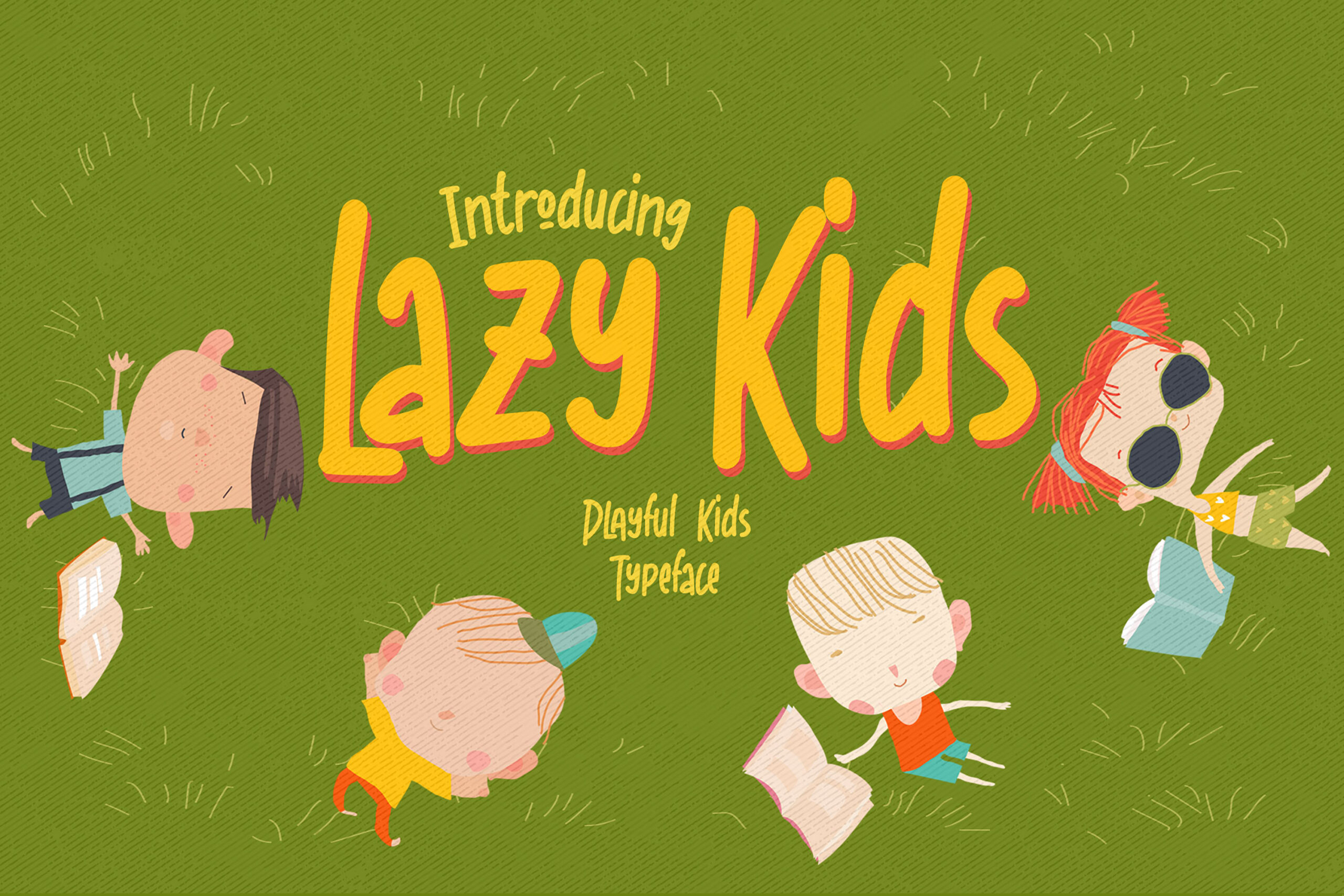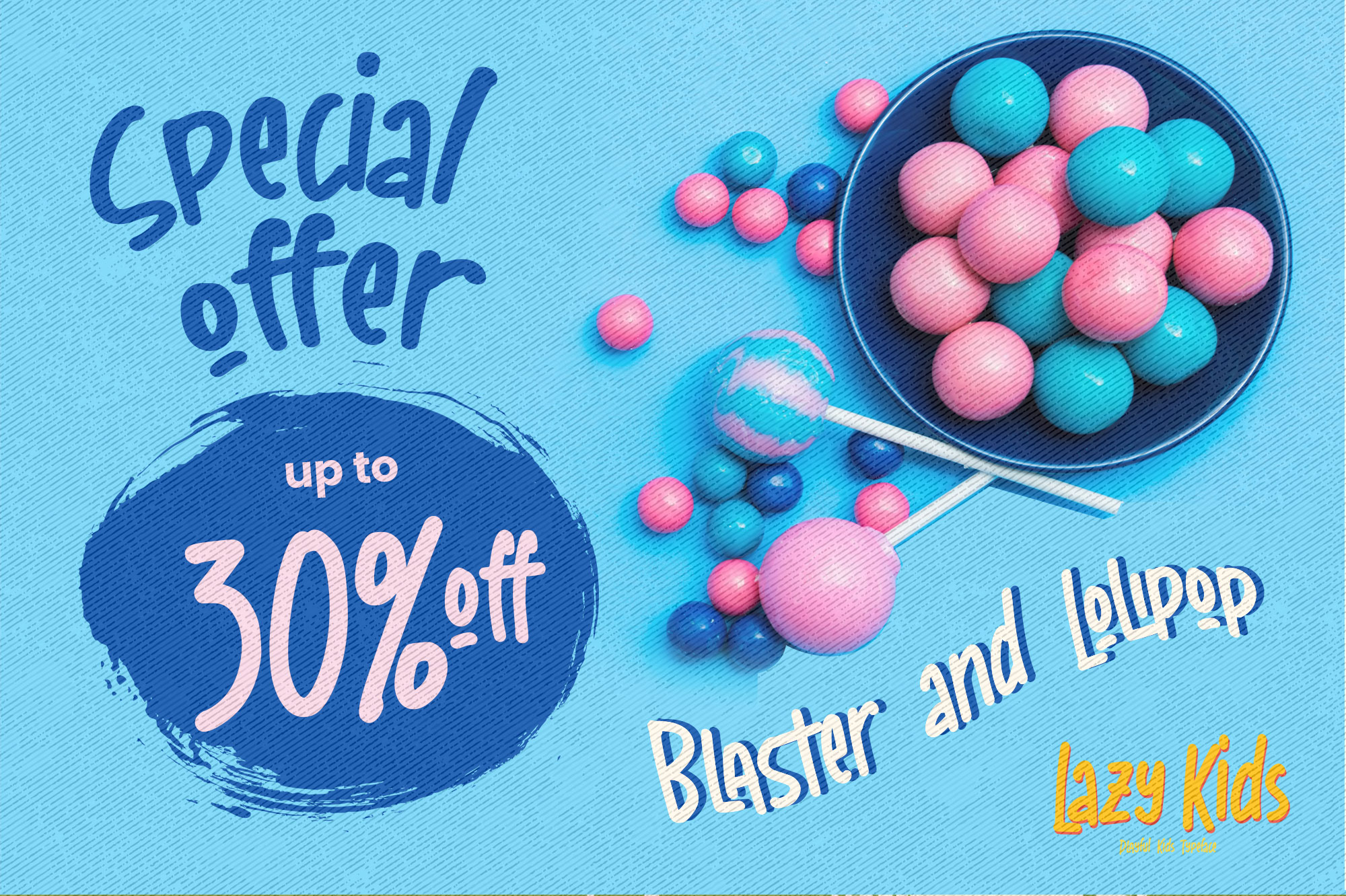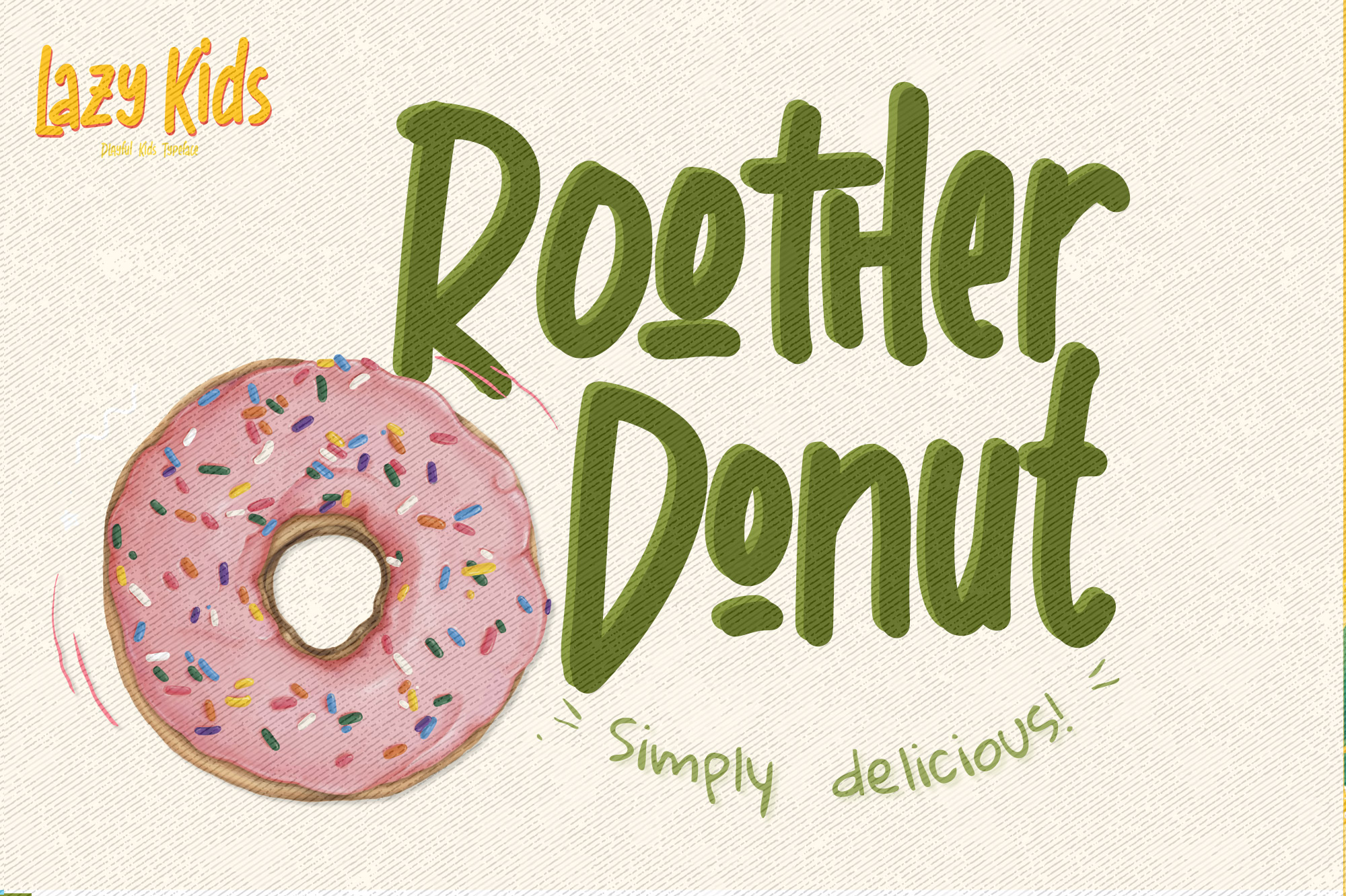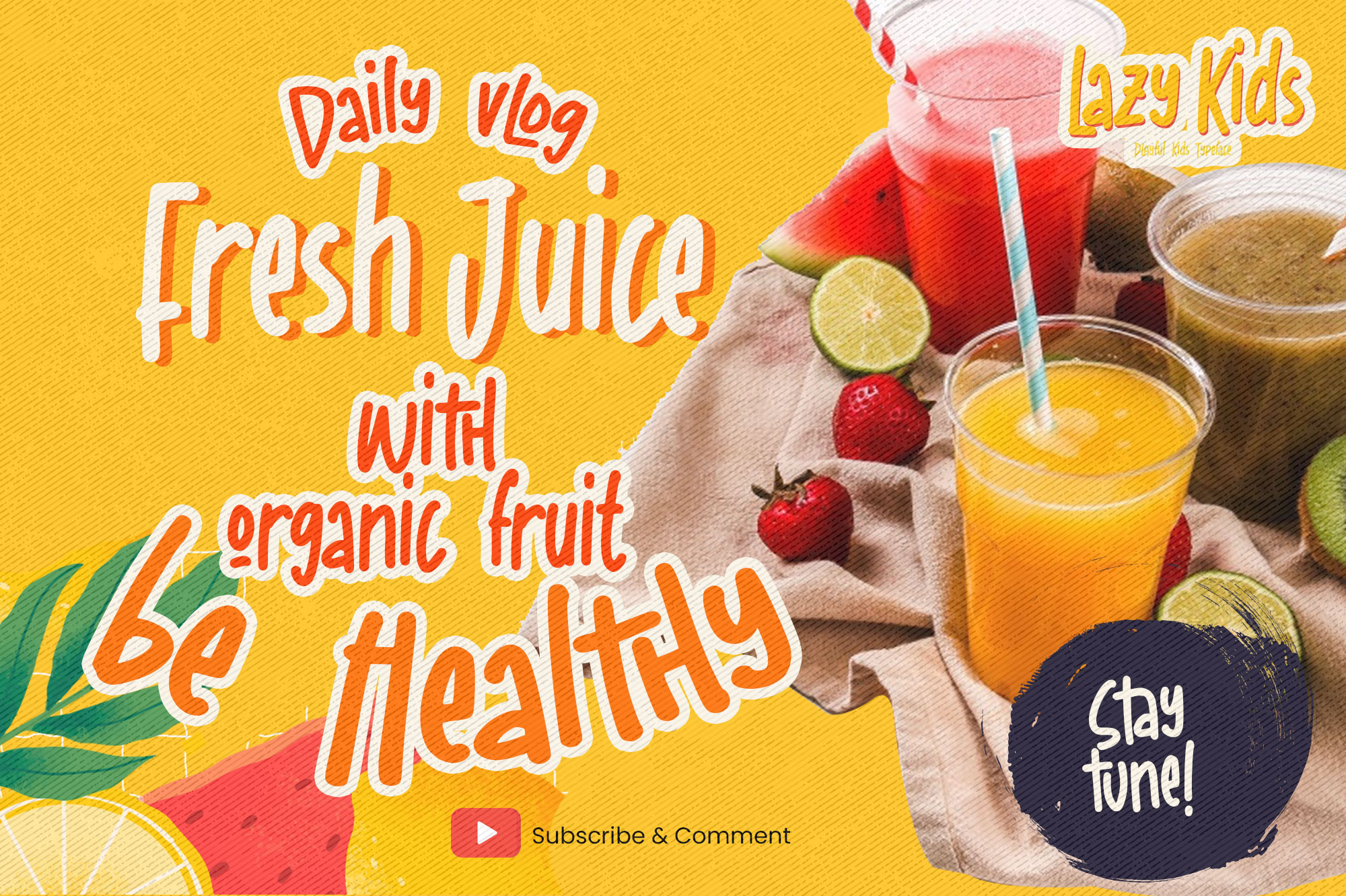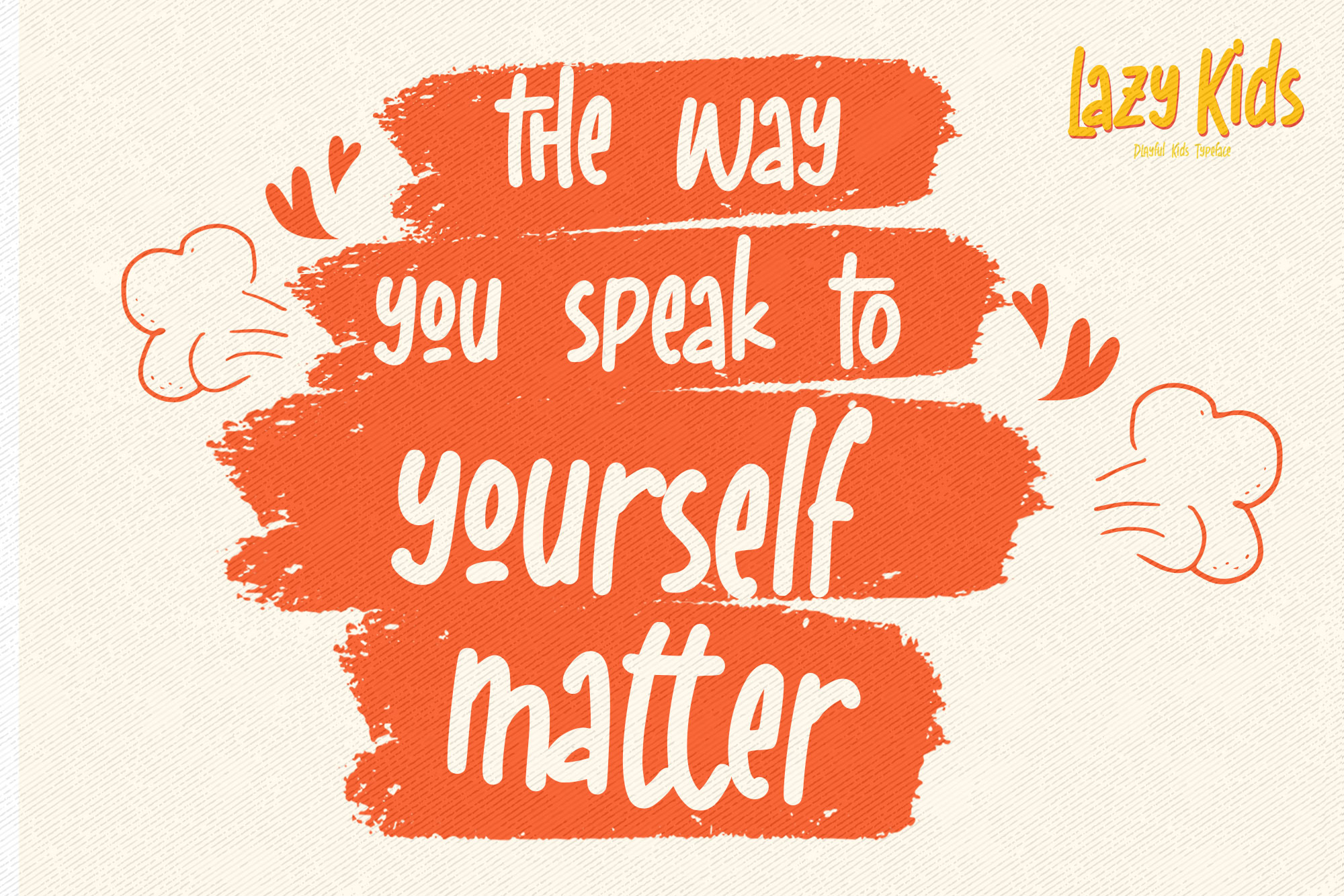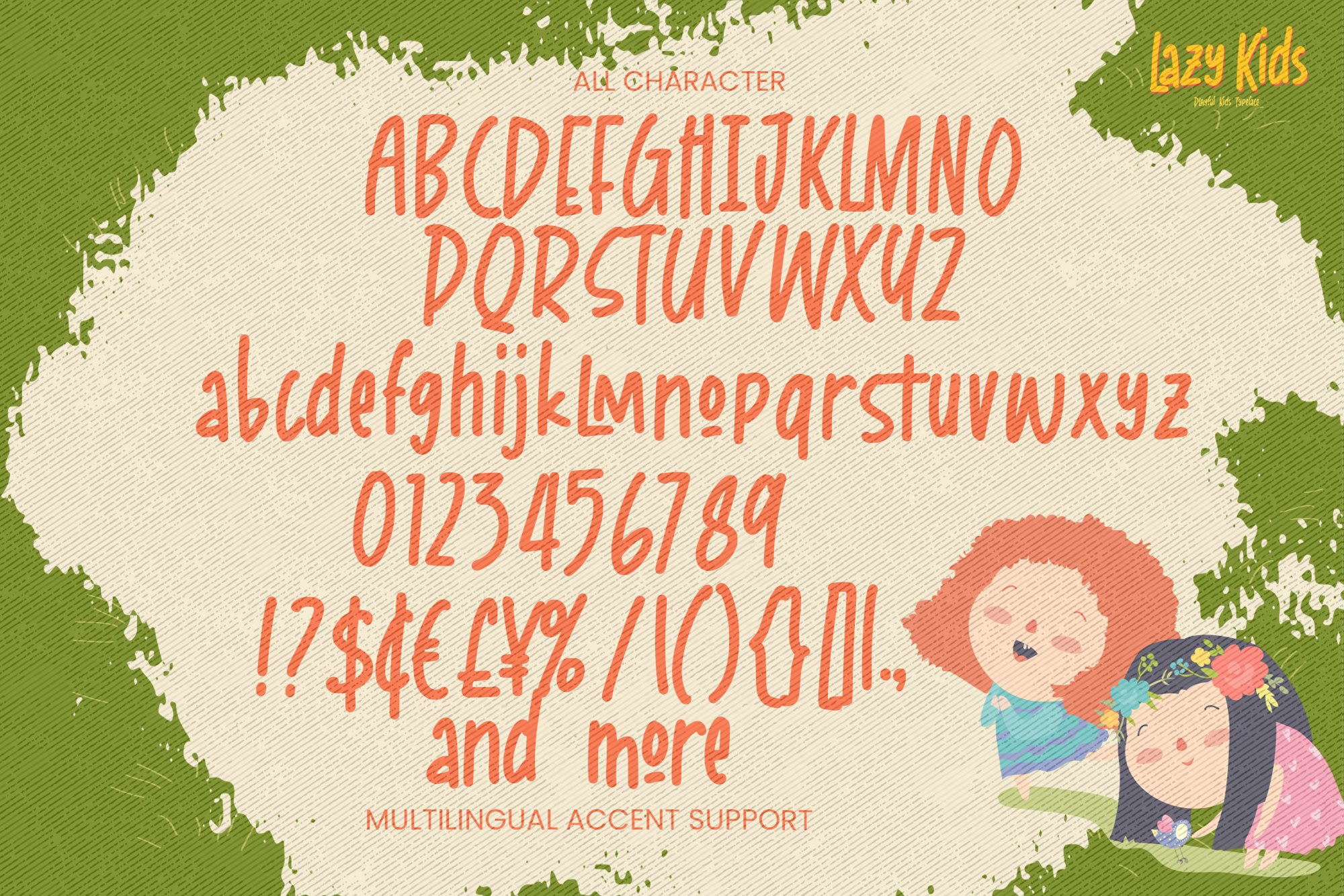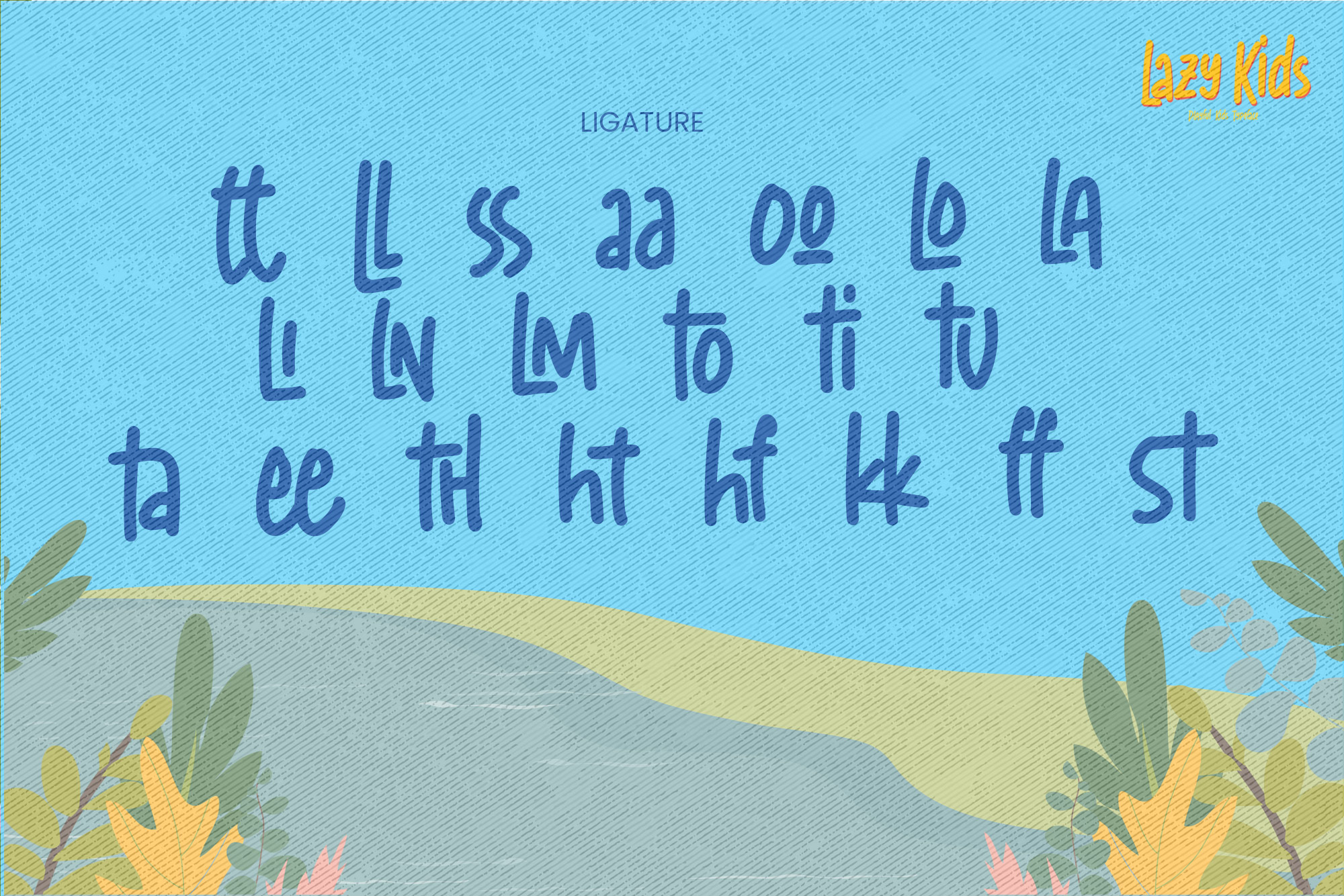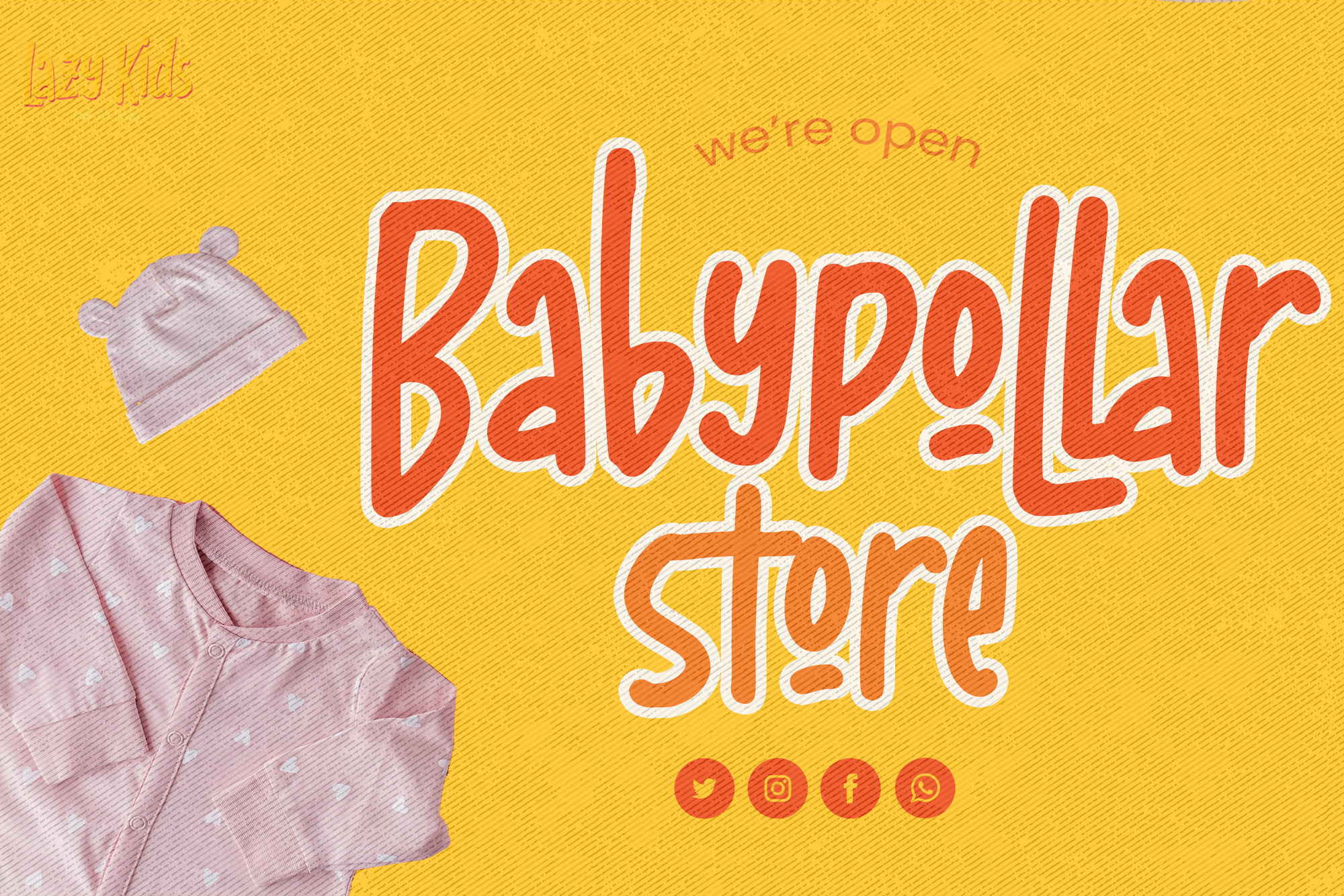
LAZY KIDS – Playful Kids Typeface is an Unique display Font that is written casually and quickly.
That is why LAZY KIDS has a cute, and unique characteristic more natural look. You can activate Ligatures OpenType panel.
LAZY KIDS Perfect for designs, branding projects, Logo design,Quotes product packaging and another Project that require fun font.